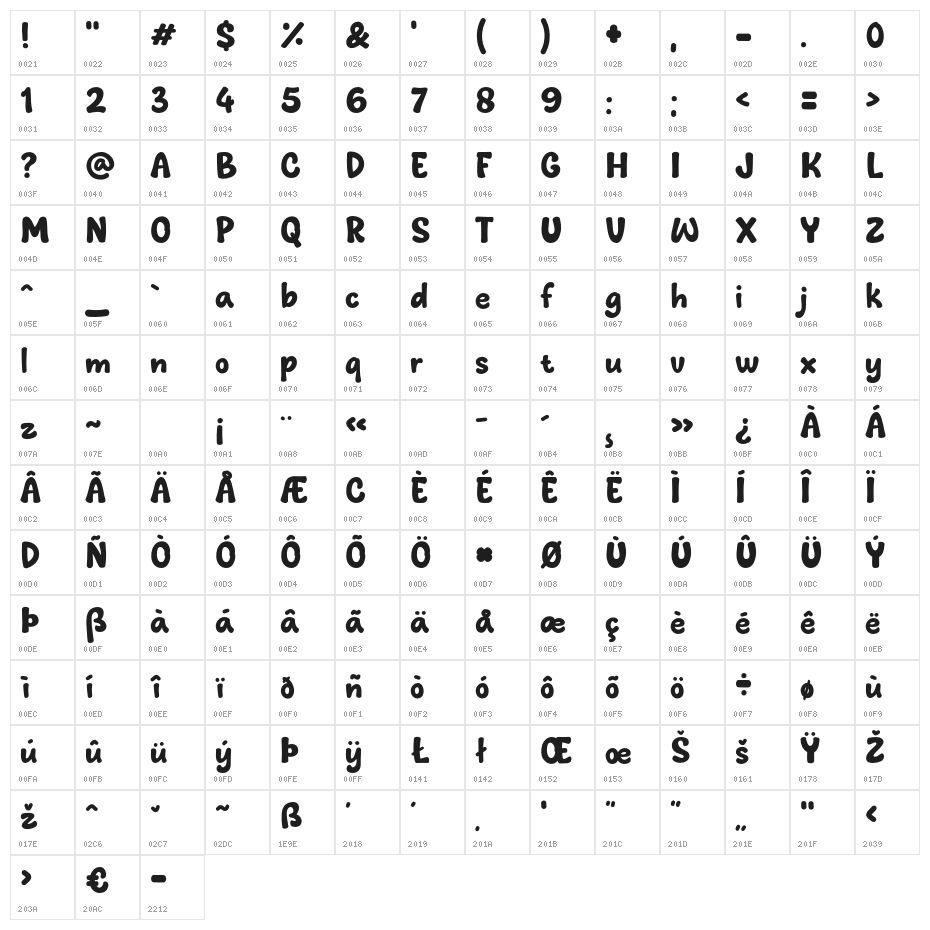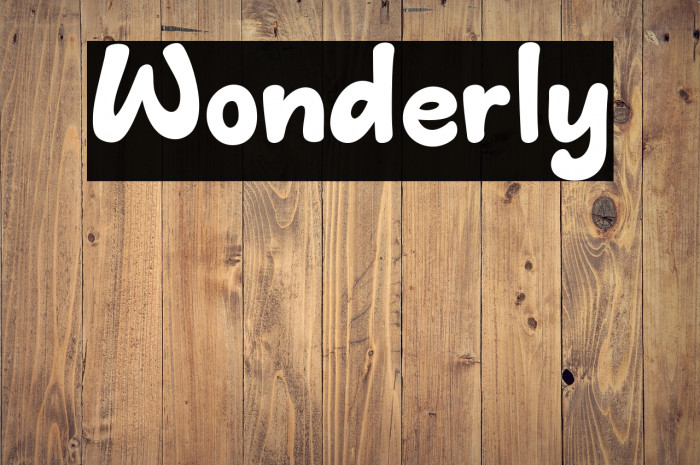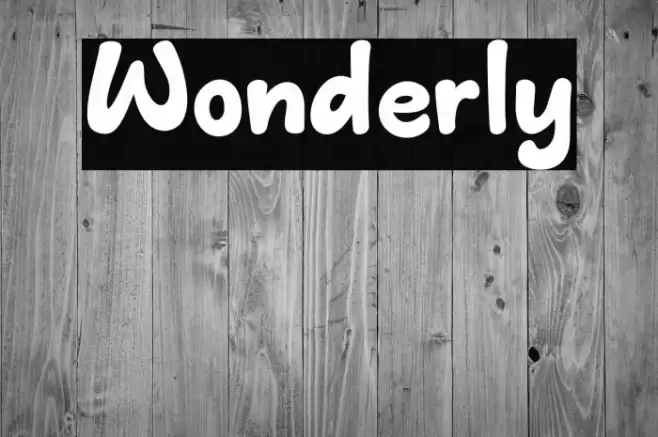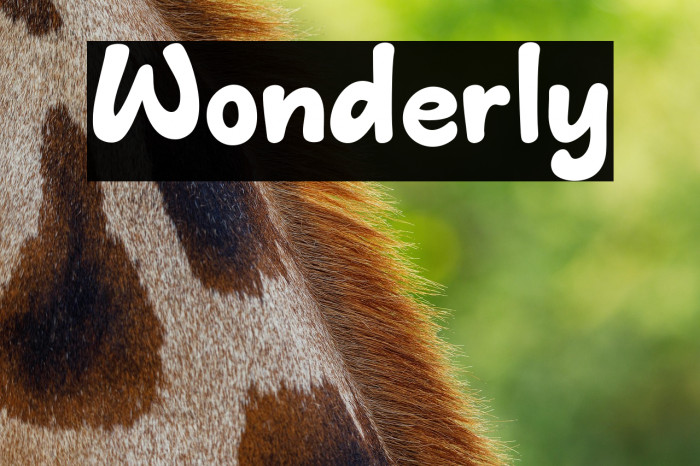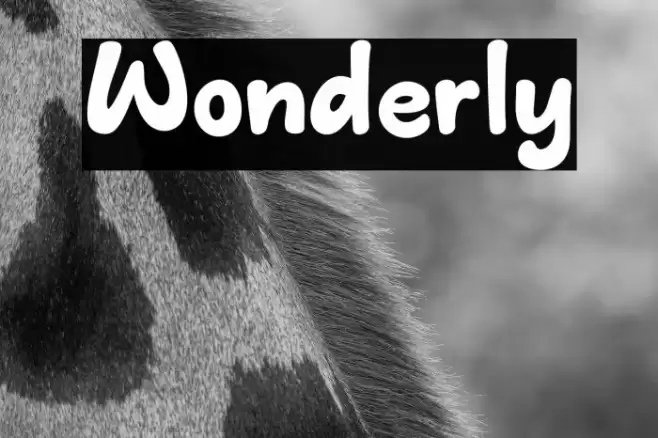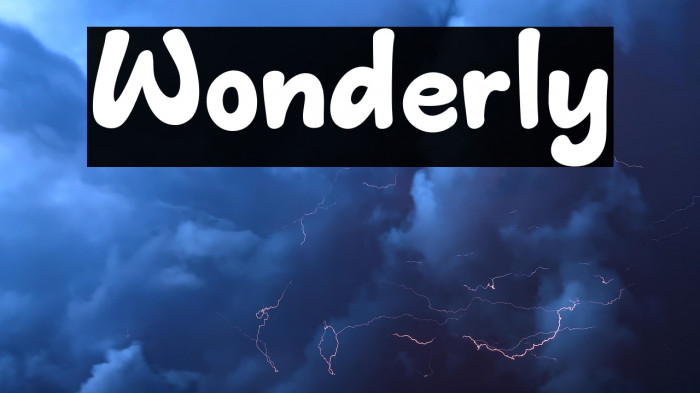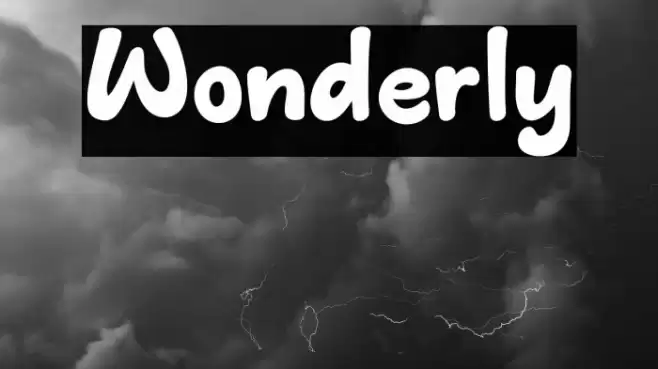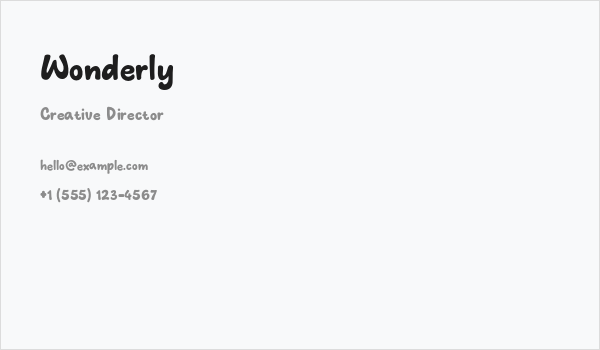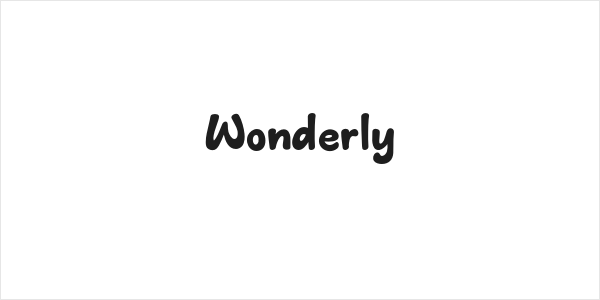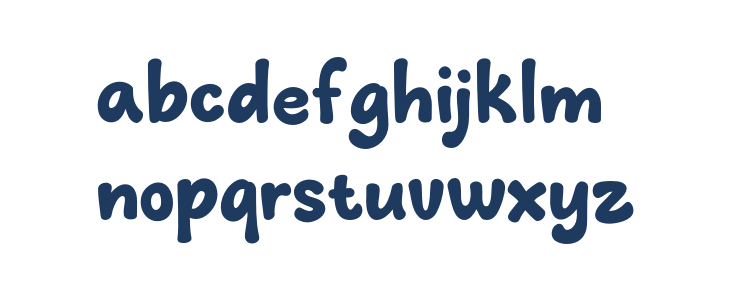
Wonderly Font
Wonderly Description
This playful and bold font features rounded, bubbly characters that convey a sense of fun and approachability. The letters are thick and consistent in weight, creating a cohesive and friendly appearance. The uppercase and lowercase letters maintain a uniform style, with a slight slant that adds a dynamic feel. The numerals and special characters are equally bold and rounded, ensuring readability and visual harmony. This font's whimsical nature makes it ideal for projects that require a touch of personality and warmth.
| Proposed Projects | Perfect for children's books, playful branding, casual invitations, and creative posters. |